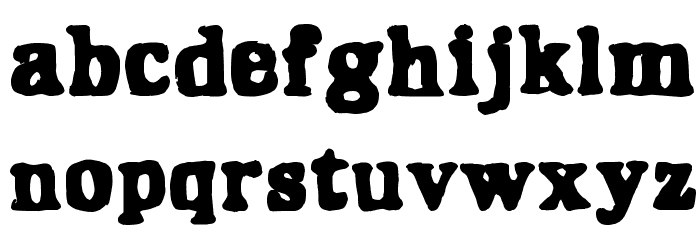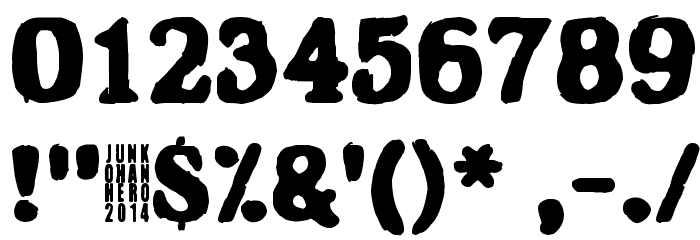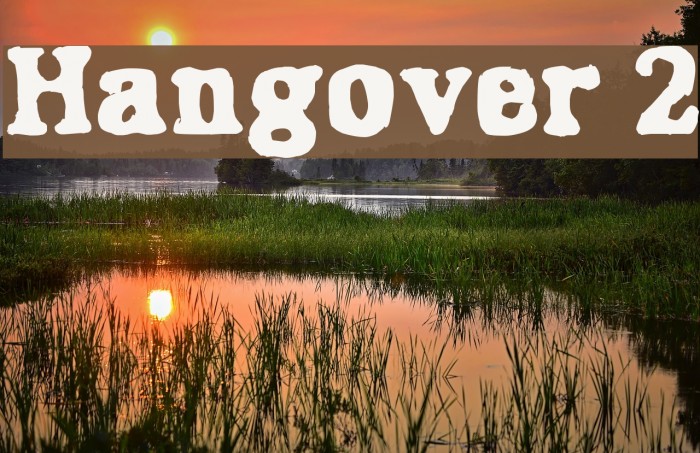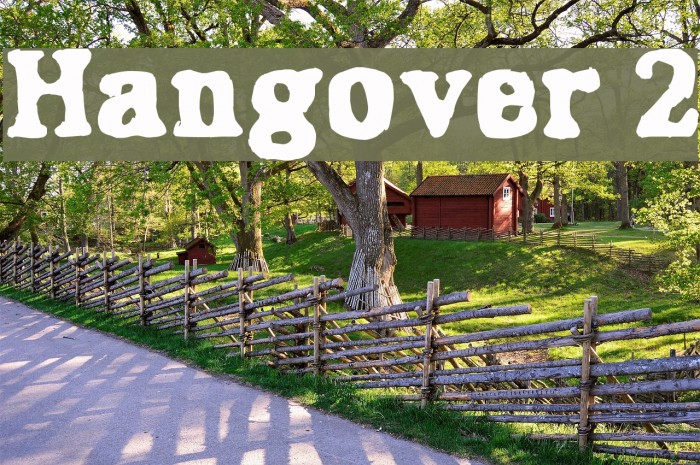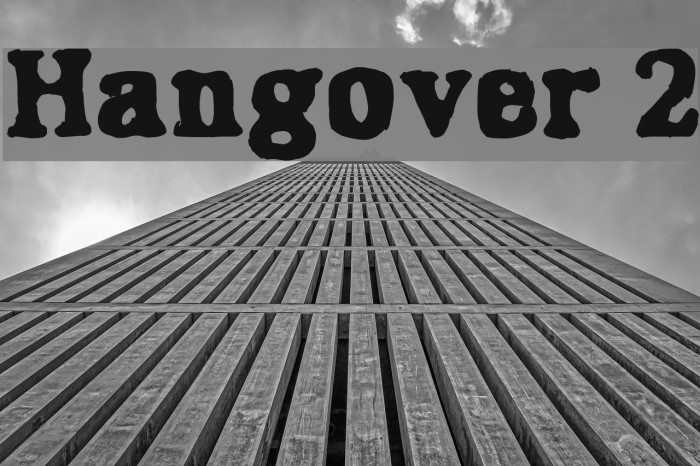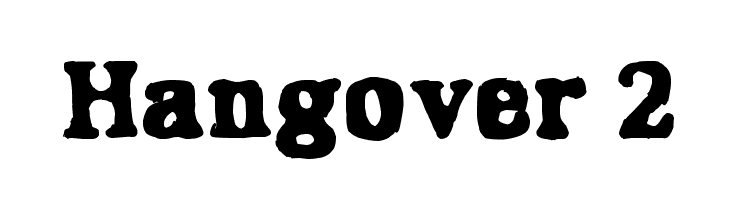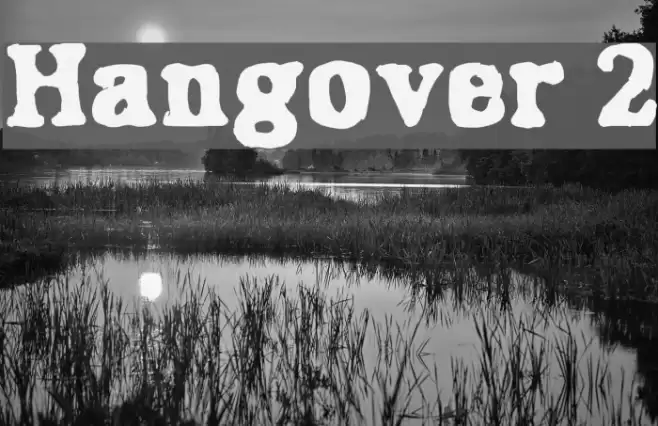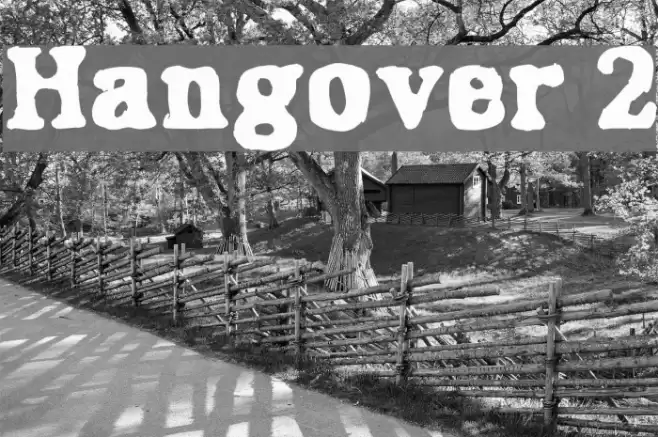
Hangover 2 Font
This font features a bold and rugged design, characterized by its thick, uneven strokes and a distressed appearance. The letters have a hand-crafted feel, with irregular edges that give it a vintage and worn-out look. The uppercase and lowercase letters maintain a consistent style, while the numerals and special characters complement the overall aesthetic. This font exudes a sense of boldness and character, making it ideal for projects that require a strong visual impact.
A bold, distressed font with a rugged, vintage appearance.
- Proposed Projects: Ideal for posters, album covers, branding for rustic or vintage-themed products, and any design needing a bold, impactful typeface.
- Overall Style: Vintage